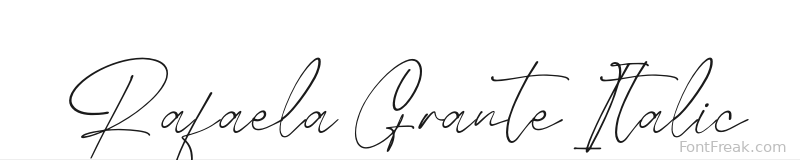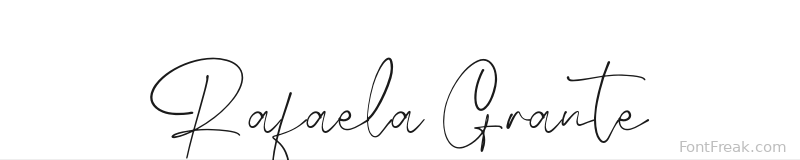
Rafaela Grante
Rafaela Grante Italic
About Rafaela Grante
Rafaela Grante by Perspectype Studio is an elegant script font that beautifully balances sophistication and legibility. Released in 2021, this font features flowing, cursive letterforms that maintain a delicate touch, making it ideal for a variety of design applications. The strokes exhibit a medium weight with soft contrasts, providing an inviting and warm aesthetic. The generous spacing between letters enhances readability while preserving the graceful nature of the script, making it suitable for both display and body text.
One of the standout features of the Rafaela Grante font is its versatility. It shines in wedding invitations, where its romantic flair can set the perfect tone for special occasions. Additionally, it works wonderfully for branding projects, particularly for boutique shops and artisanal businesses that want to convey a personal touch. This font can also enhance the visual appeal of restaurant menus, adding a unique character that draws attention to dish descriptions. Furthermore, content creators can leverage Rafaela Grante for social media graphics and promotional materials, ensuring their visuals stand out in a crowded digital landscape.
Targeted towards graphic designers, small business owners, and content creators, the Rafaela Grante font free download offers an accessible option for those looking to elevate their design projects without compromising on quality. Its charming style and adaptable nature make it a go-to choice for anyone aiming to create memorable and impactful visuals. In a world filled with generic typefaces, Rafaela Grante stands out with its artistic elegance and thoughtful design, making it a valuable addition to any typographic toolkit.